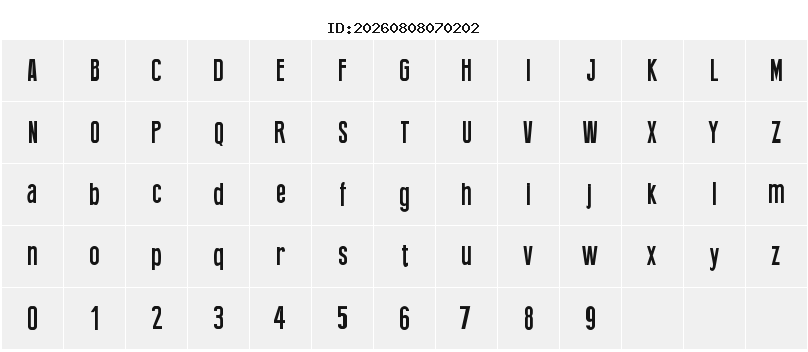
Press Feeling Preview
• Font Name: Press Feeling
• Designer: Galdino Otten
About Press Feeling.ttf
Press Feeling.ttf is a modern, elegant sans-serif font designed for ultimate readability and visual harmony. Perfect for branding, headlines, web design, and print materials.